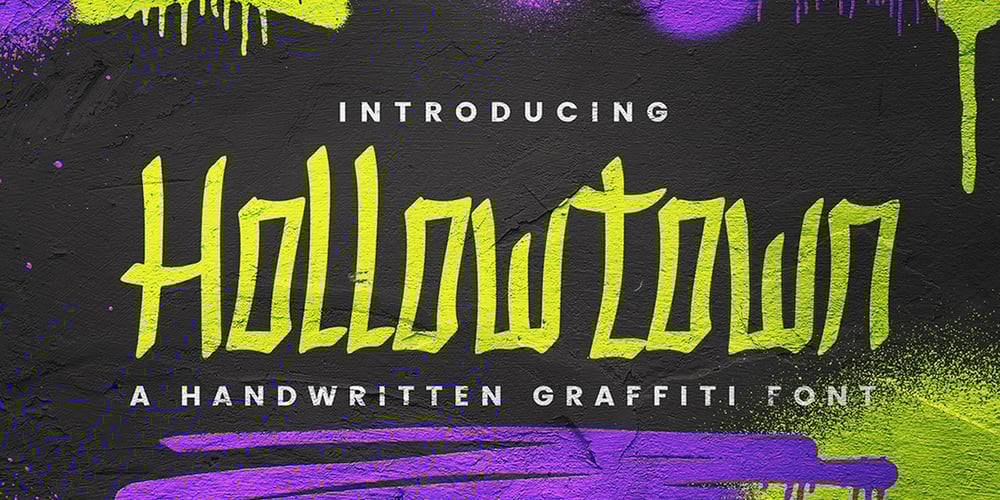
Hollowtown Font Family was designed by Hilmius Akbar and published by Typefactory. Hollowtown contains 1 styles and family package options. Hollow Town is a Handwritten Graffiti typeface, perfectly suitable for youtube channel, movie title, design t-shirt, poster, etc.